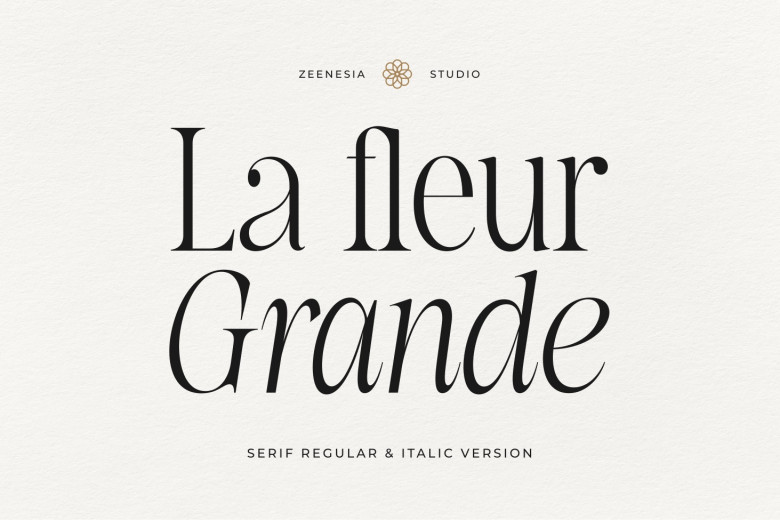
La Fleur Grande Font
La Fleur Grande is an exquisite combination of regular and italic serif fonts, designed for large sizes. Stylistic Alternative and Ligature make La Fleur Grande stand out from other fonts and will ensure that your project stands out beautifully.
Ideal for editorial projects, logo design web font branding packaging magazines as well as providing chic text overlay for backgrounds in images – La Fleur Grande makes an impactful statement about style!
La Fleur Grande Serif Font